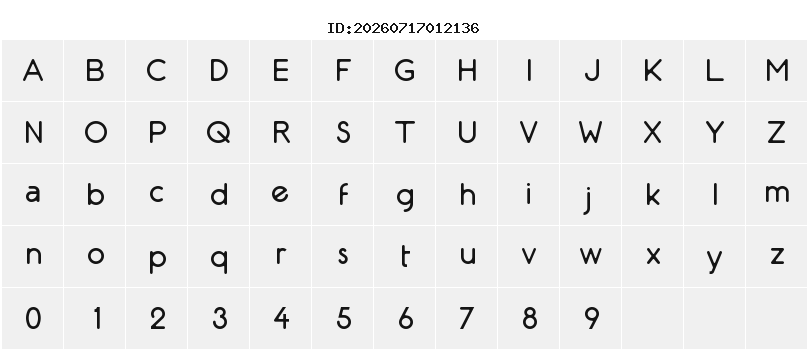
• Font Name: AR Techni
• Designer: Heber Xavier Arroyo Arce
AR Techni.ttf is a modern, elegant sans-serif font designed for ultimate readability and visual harmony. Perfect for branding, headlines, web design, and print materials.